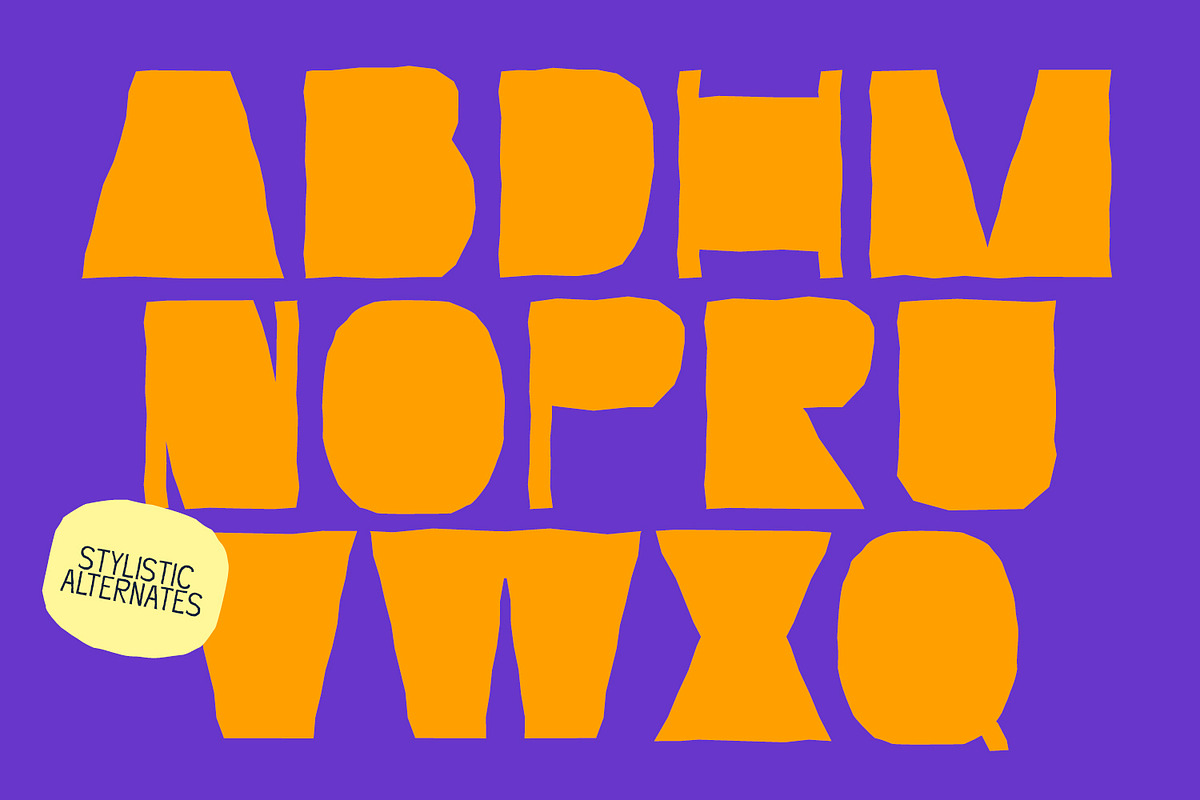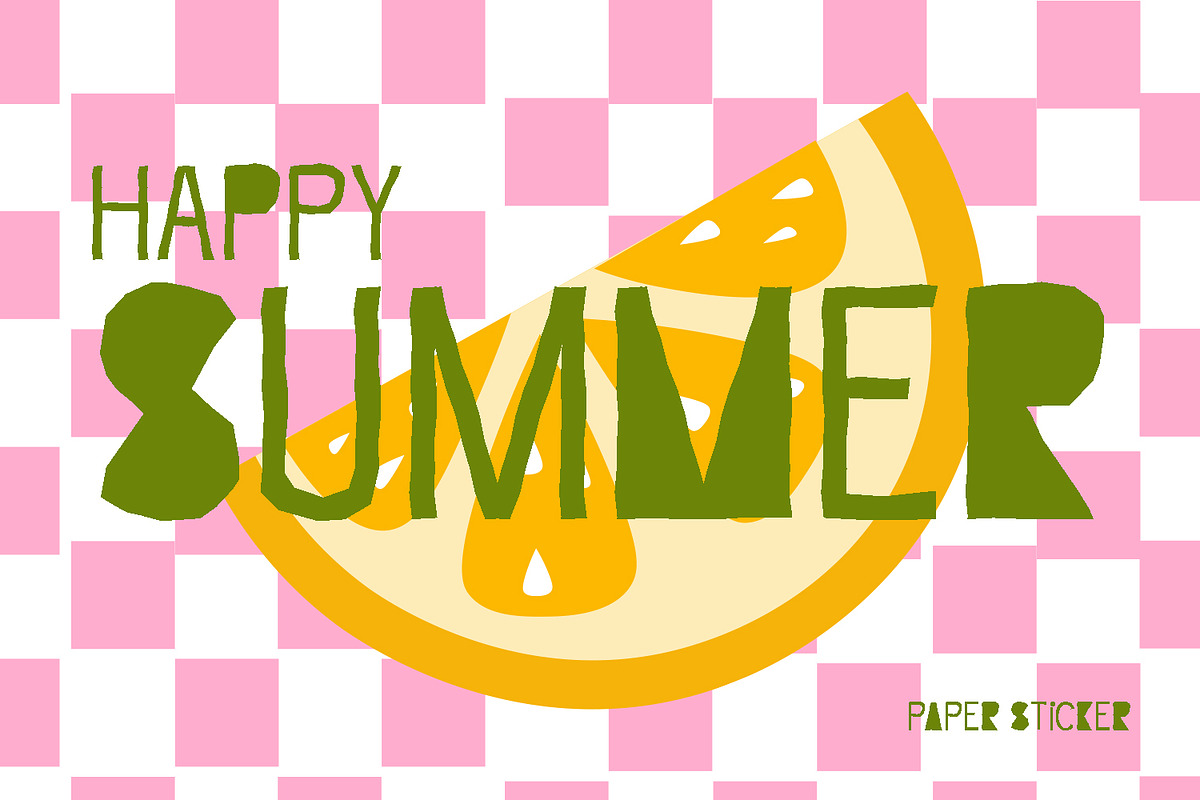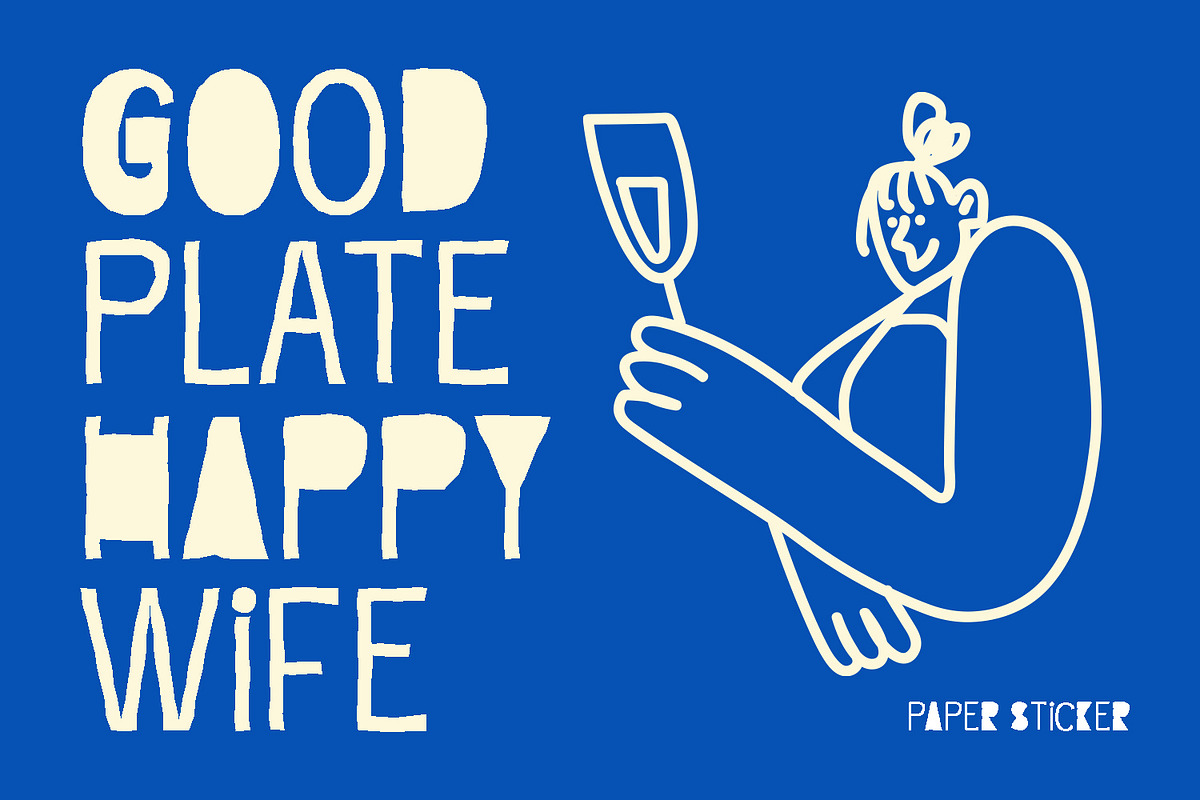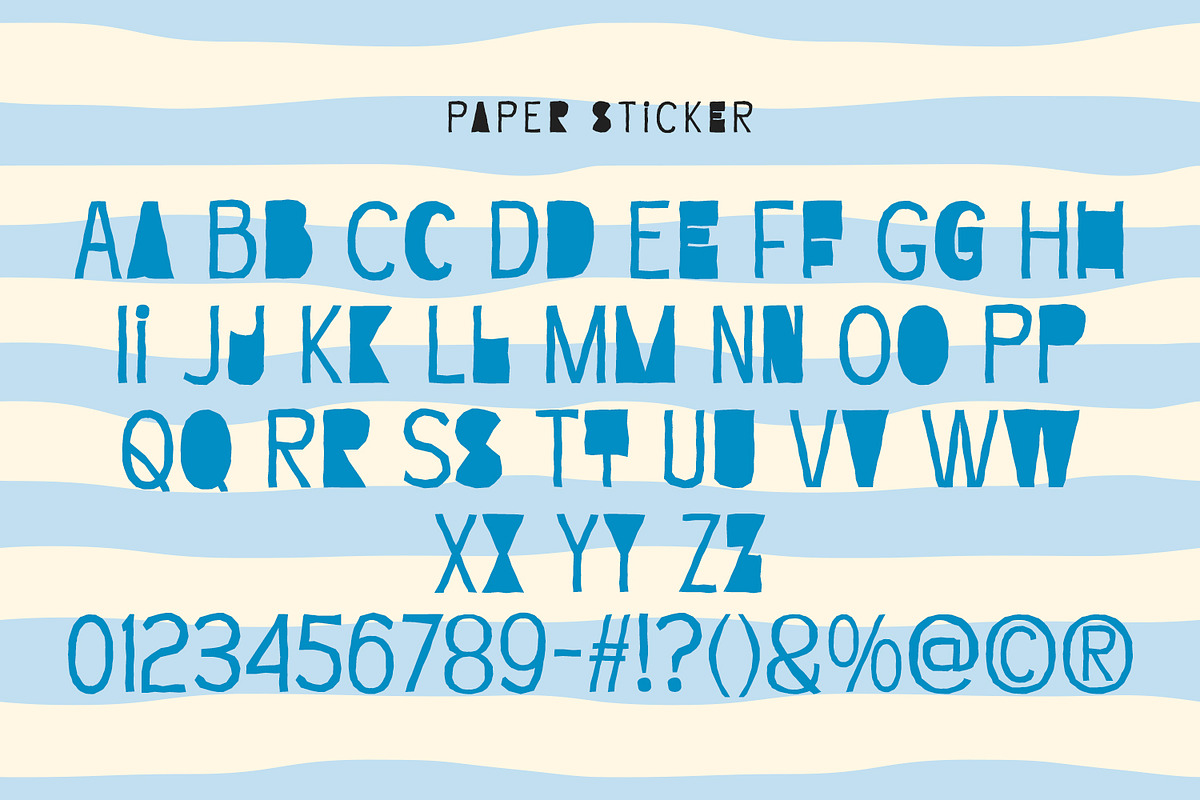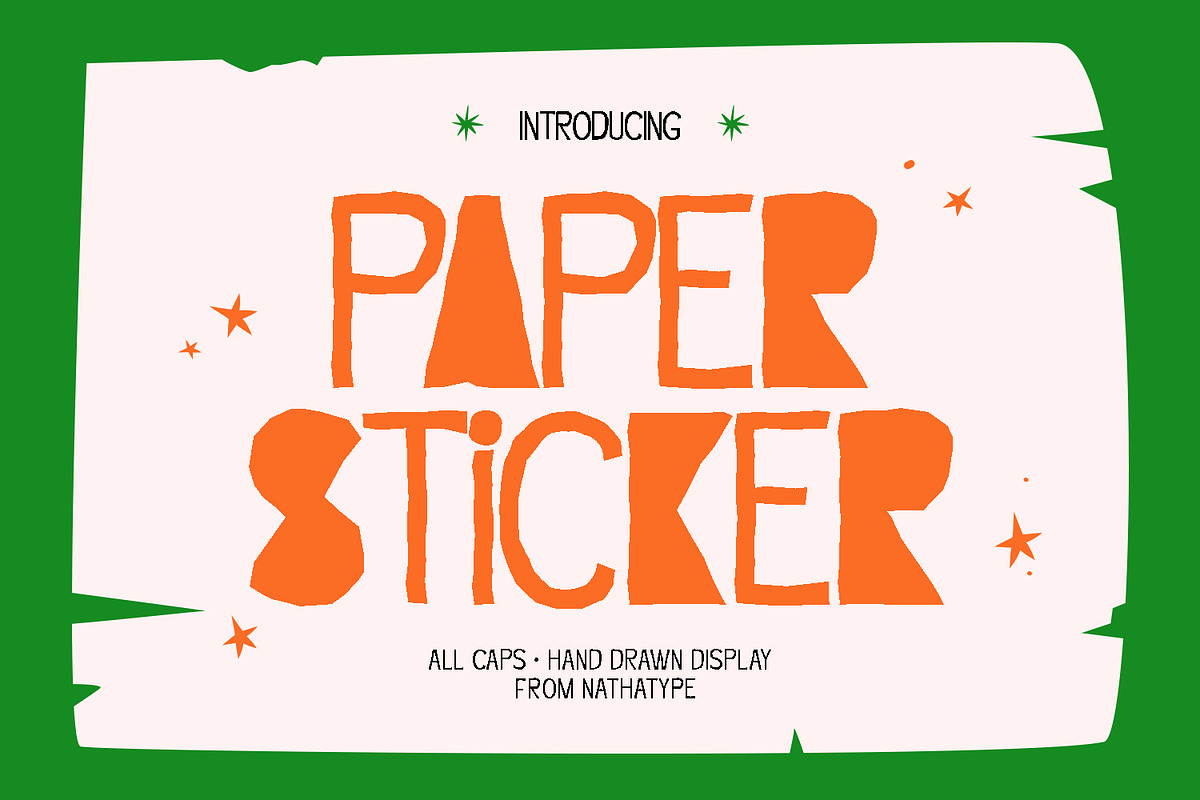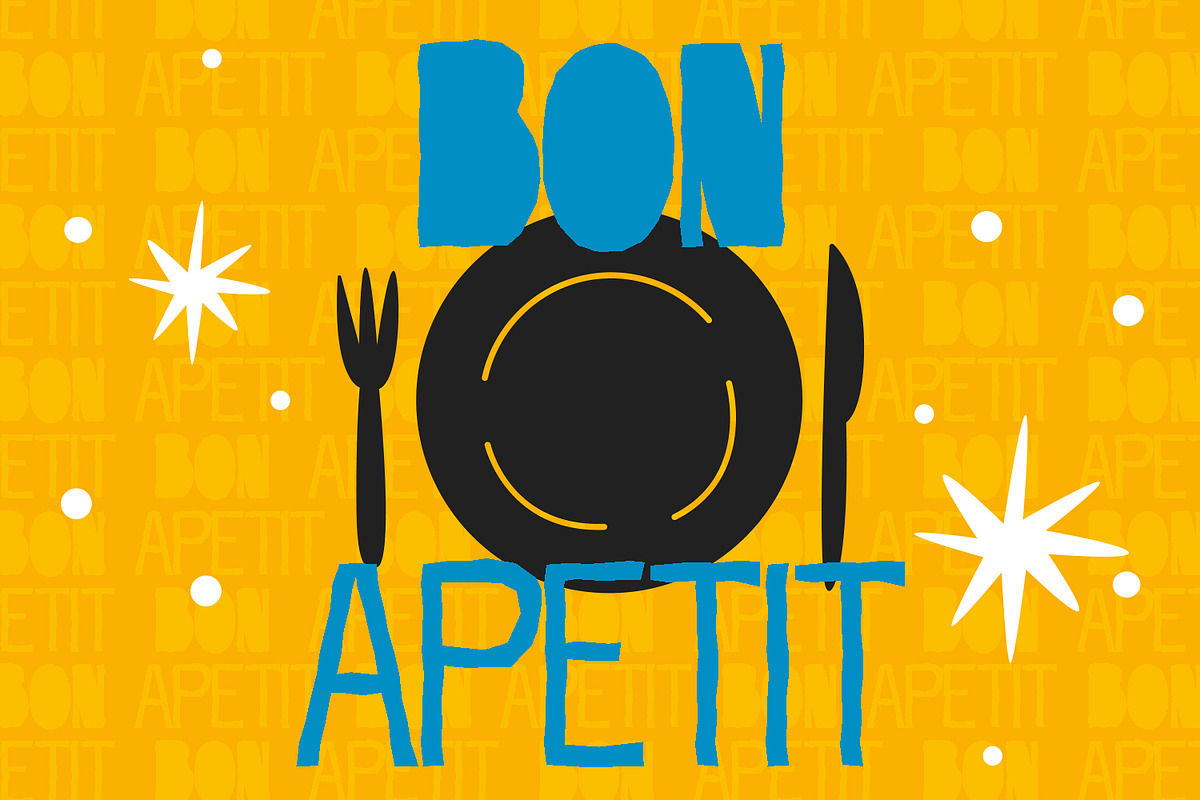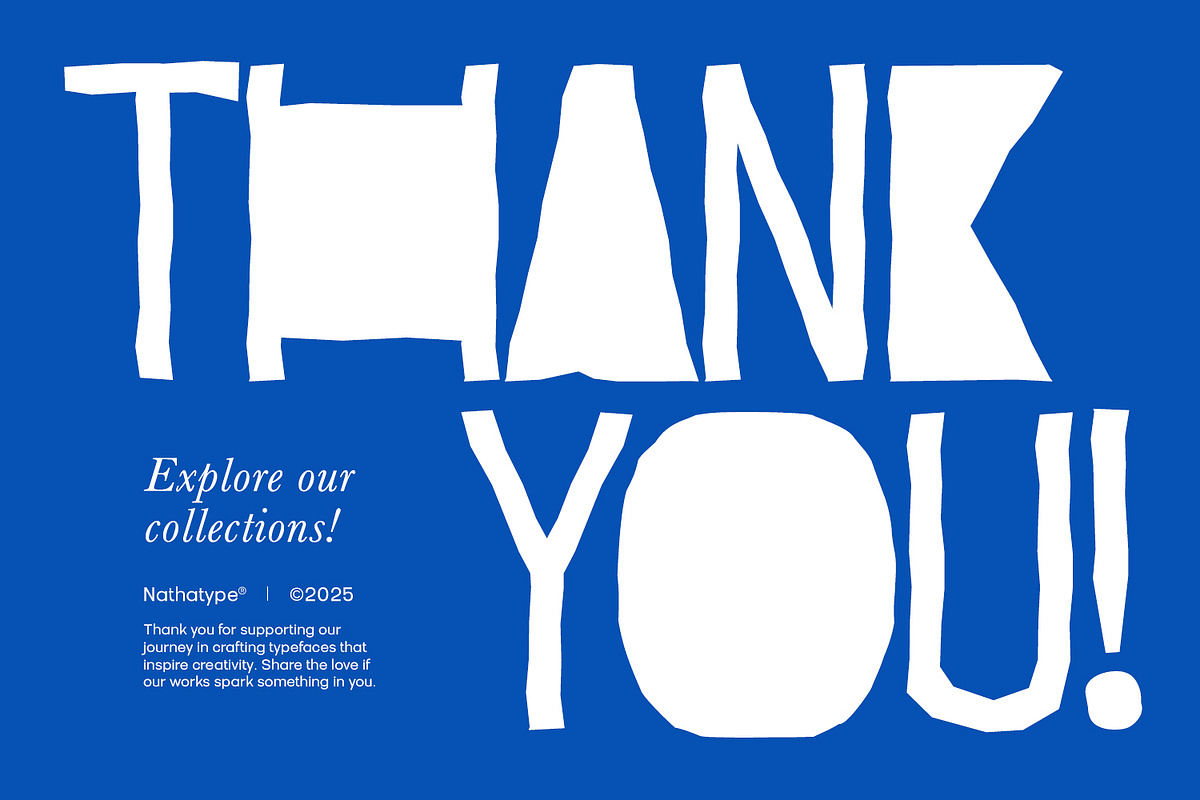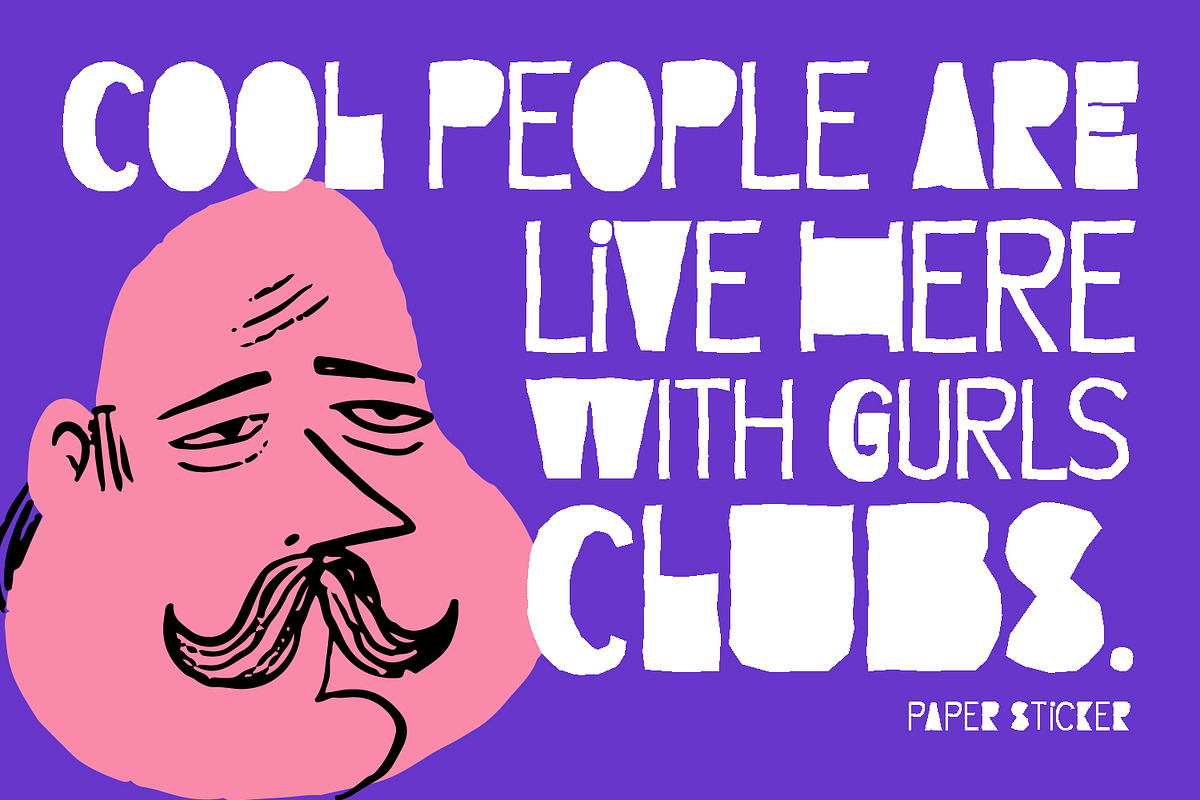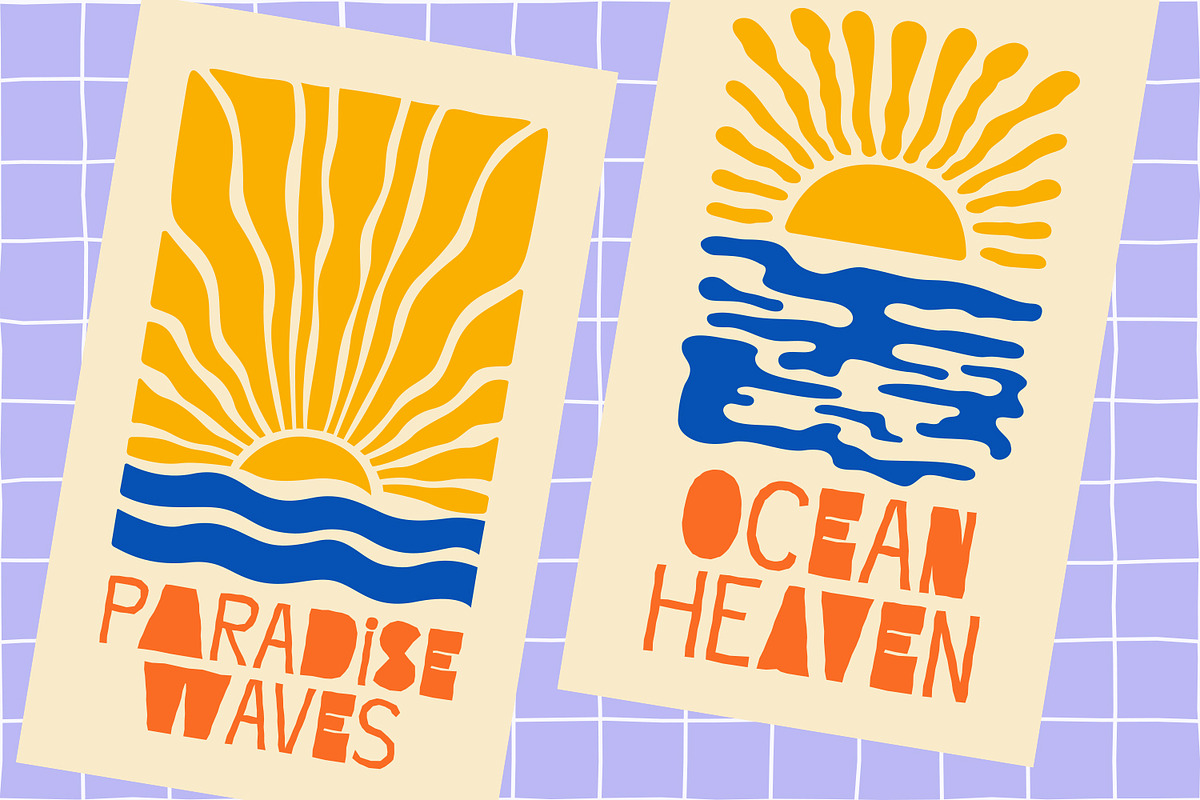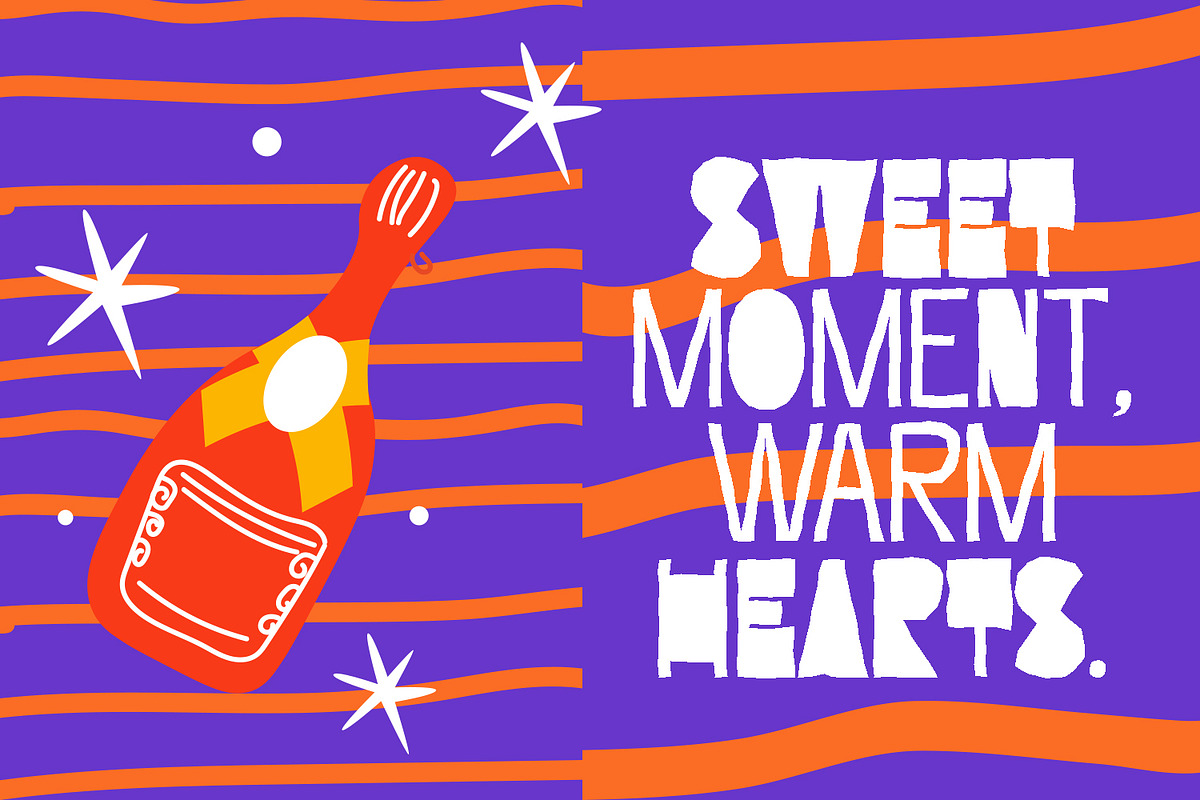
Paper Sticker
Paper Sticker is a unique display script font. Unlike traditional script fonts, Paper Sticker blends script-inspired movement with a display-style structure, making it perfect for bold design while maintaining a friendly, approachable feel. The low contrast keeps the letterforms smooth and consistent, while the irregular outlines add texture and a paper-cut, handmade effect that stands out beautifully in both digital and print designs. In addition, enjoy the features here.
- Contextual Alternates
Paper Sticker fits in logos, quotes, branding, posters, and many more designs. Find out more ways to use this font by taking a look at the font preview.